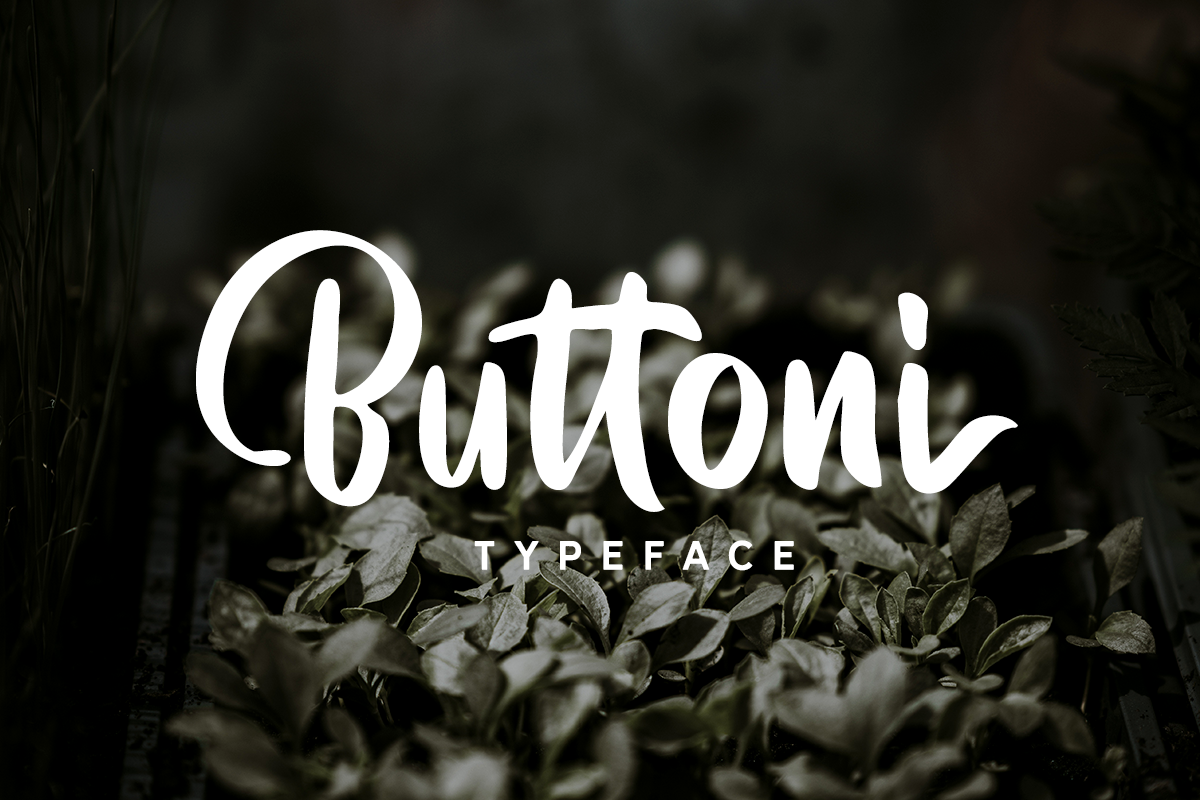
Buttoni Font
Buttoni Font is widely used in Italian restaurant branding, traditional trattoria menus, authentic pasta packaging, Mediterranean food labels, vintage culinary posters, artisanal cooking magazines, family recipe books, and classic European dining materials.
Buttoni Font is an exciting typeface that captures the warm essence of Italian culinary tradition with its rich character and Mediterranean charm. This font embodies authentic heritage, family tradition, and artisanal craftsmanship, making it perfect for brands that want to convey genuine Italian culture, traditional recipes, and heartwarming hospitality in their appetizing visual communications.
The Buttoni Font family includes Regular, Bold, Light, Italic, Condensed, Extended, Rustic, and Traditional variants. This Mediterranean collection provides designers with multiple expressions of Italian authenticity to match different culinary themes and traditional food service applications.
Buttoni Font Free Download delivers exceptional culinary authenticity for designers working with food and hospitality brands that celebrate Italian heritage. The font's traditional character and Mediterranean styling create an immediate sense of authentic Italian culture and family tradition. This typeface excels in projects where heritage, authenticity, and traditional craftsmanship must inspire trust in genuine Italian recipes and time-honored culinary techniques.
The distinctive warmth of Buttoni Font lies in its ability to convey the passionate spirit of Italian cooking and the welcoming atmosphere of traditional family kitchens. Each letterform maintains the robust character and organic texture that reflects generations of Italian culinary tradition and artisanal food preparation. The font's substantial presence and inviting proportions create visual nourishment that captures the essence of authentic Italian hospitality and traditional cooking methods.
Italian restaurants and Mediterranean food brands choose Buttoni Font for its power to communicate genuine cultural heritage and authentic culinary expertise. The typeface works beautifully in traditional Italian restaurant branding, artisanal pasta company communications, Mediterranean grocery store signage, and authentic recipe publications. Its traditional aesthetic appeals to food enthusiasts who appreciate genuine Italian culture, family recipes, and authentic Mediterranean dining experiences.
The culinary craftsmanship of Buttoni Font includes traditional variations and rustic textures that enhance the handmade quality essential to authentic Italian food branding. These heritage features ensure that text maintains the warm hospitality and cultural character that defines legitimate Italian culinary communication while meeting professional standards for commercial applications in the food service and Mediterranean cuisine industries.